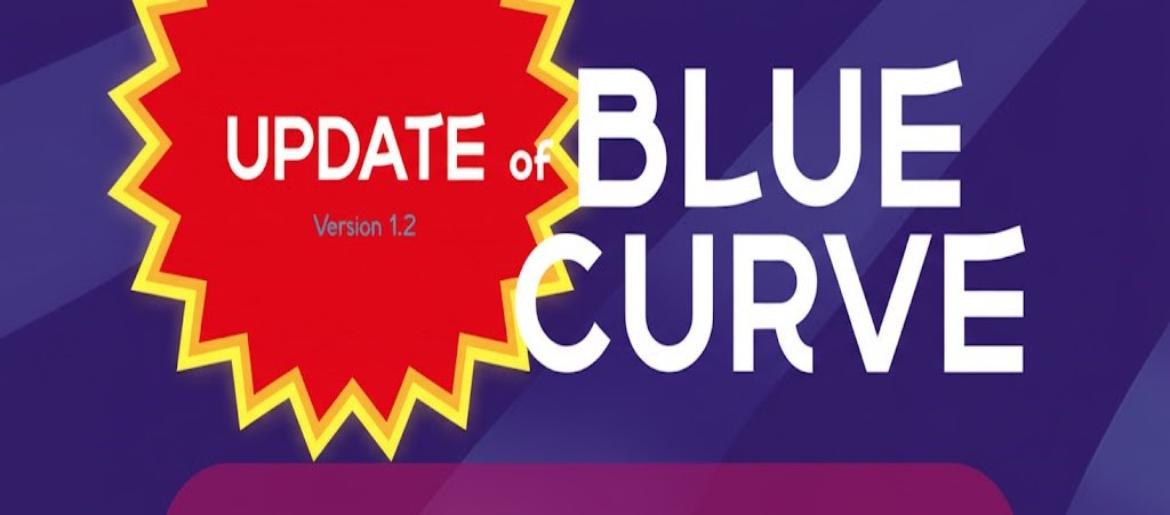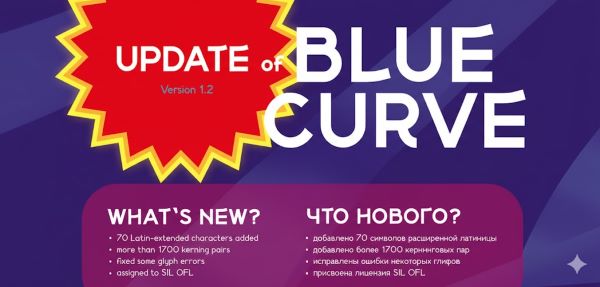
Blue Curve Font
Blue Curve Font is a smooth, flowing display typeface featuring rounded shapes and gentle curves. It feels friendly and modern, making it suitable for logos, posters, branding, headlines, packaging, and creative projects where a soft, stylish, and approachable visual tone is needed without overwhelming the overall design balance and clarity.
➤ Font Name: Blue Curve
➤ Designer: Dimitri Antonov
➤ Style: Sans Serif